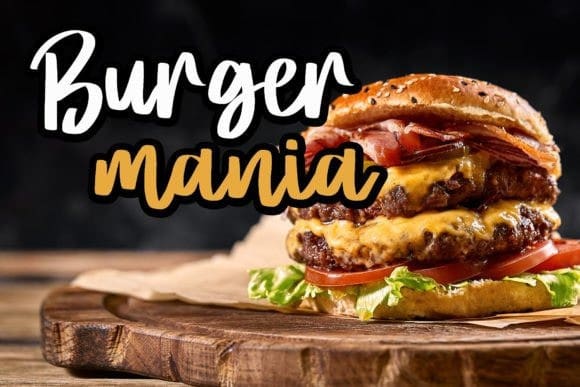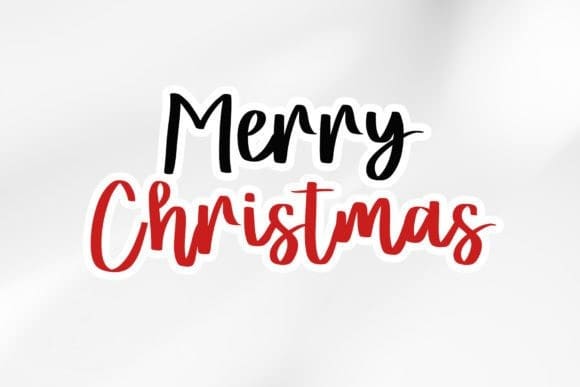
Wong Sepele Font
Wong Sepele Font is a natural and friendly handwritten font. Whether you’re using it for crafts, digital design, presentations, or making greeting cards, this font has the potential to become your favorite go-to font, no matter the occasion!